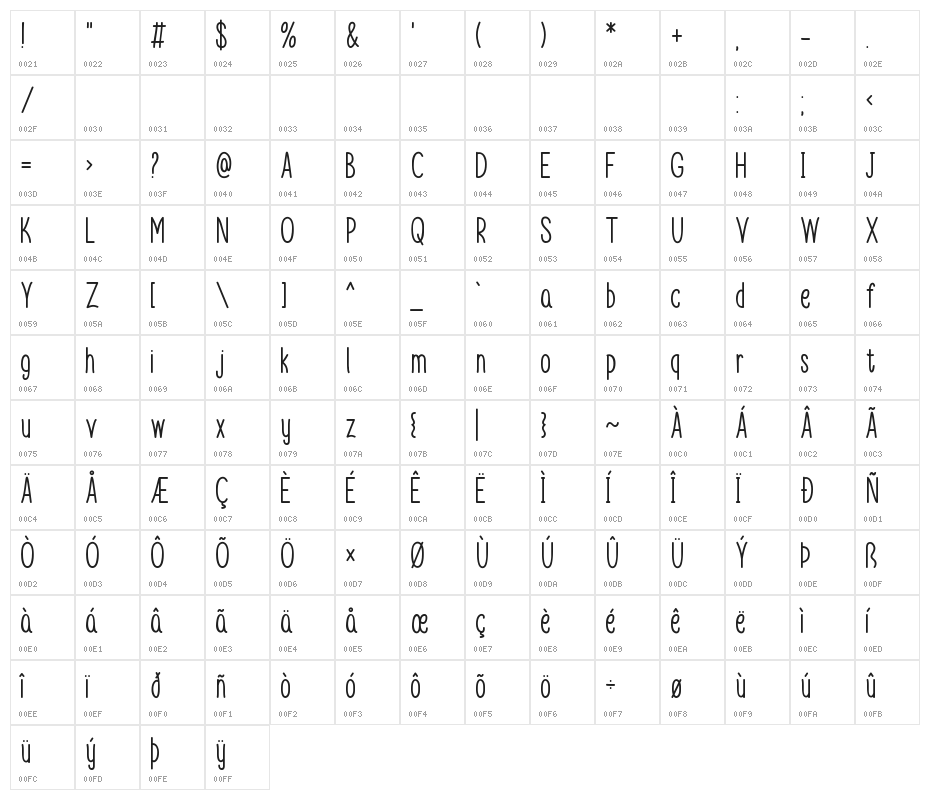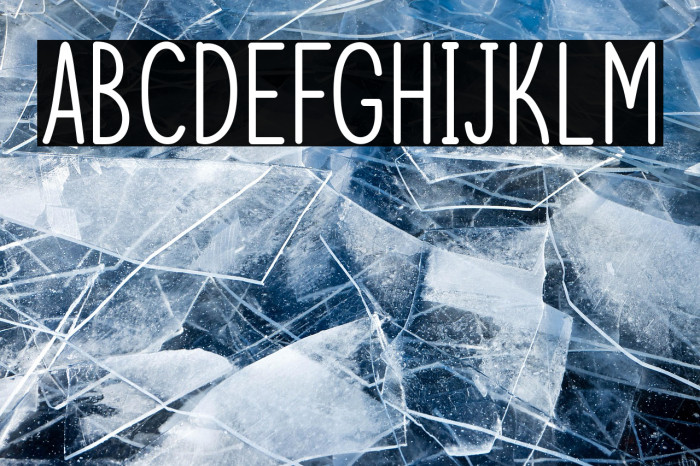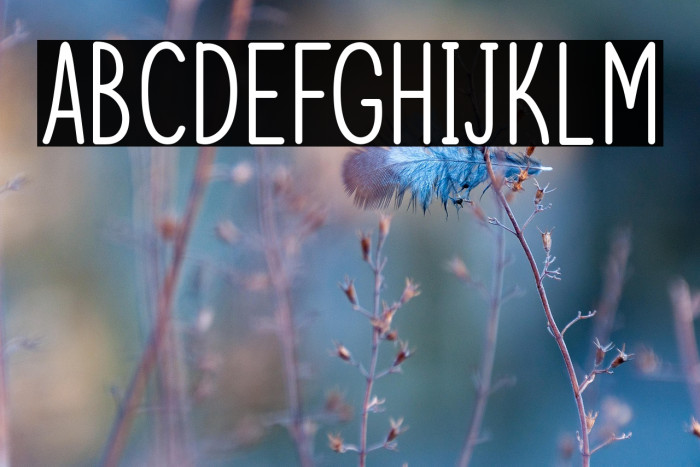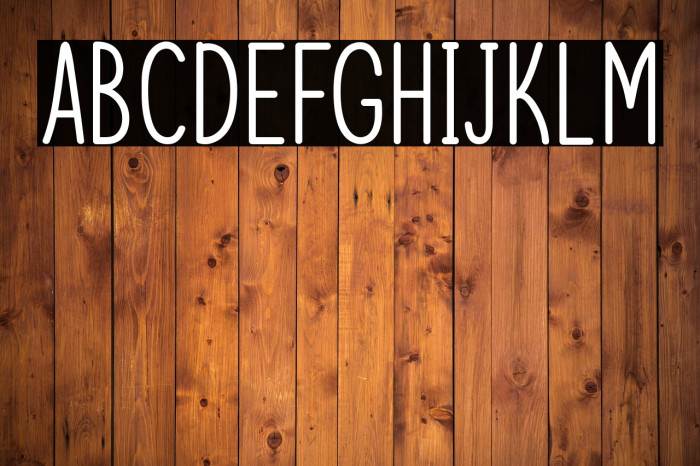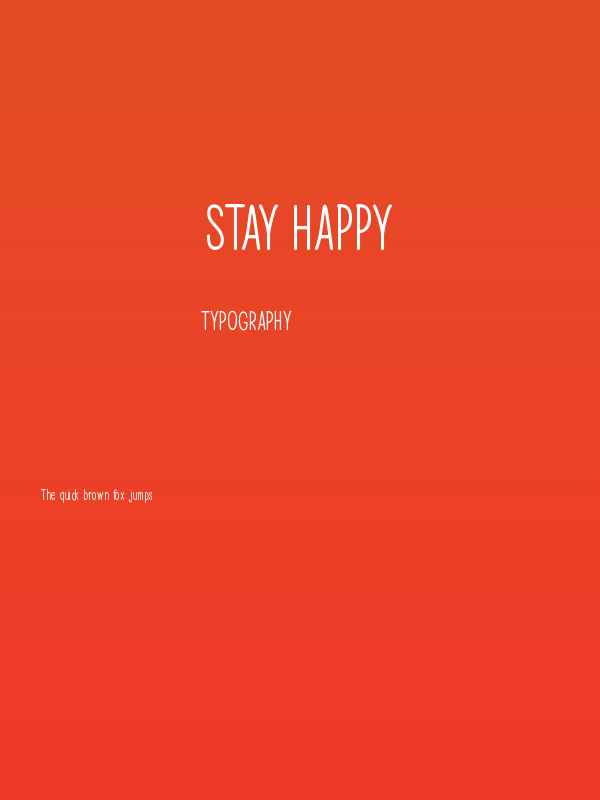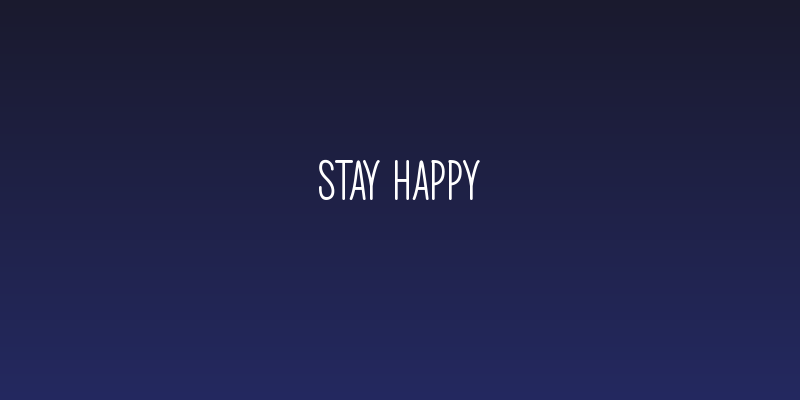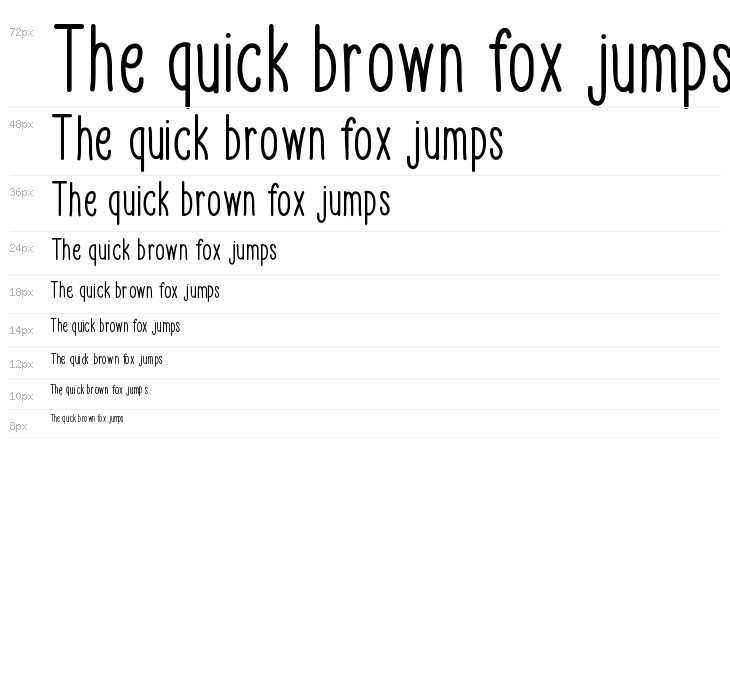
Stay Happy Font
Stay Happy Description
This playful and whimsical font features tall, narrow letters with a hand-drawn appearance. The strokes are consistent in width, giving it a clean and approachable look. The rounded edges and slight irregularities in the letterforms add a friendly and casual feel. It's well-suited for projects that aim to convey a sense of fun and creativity. The font includes a full set of uppercase and lowercase letters, numbers, and a variety of special characters, making it versatile for different design needs.
| Proposed Projects | Ideal for children's books, greeting cards, playful branding, and casual invitations. |